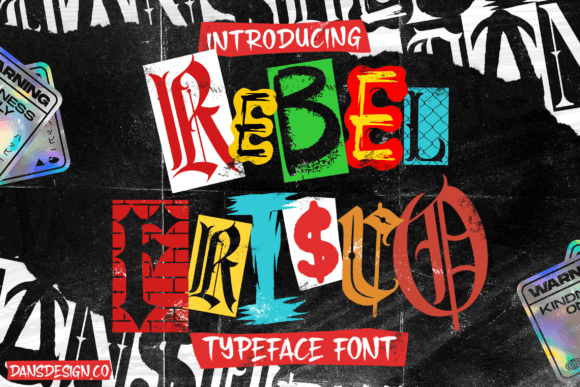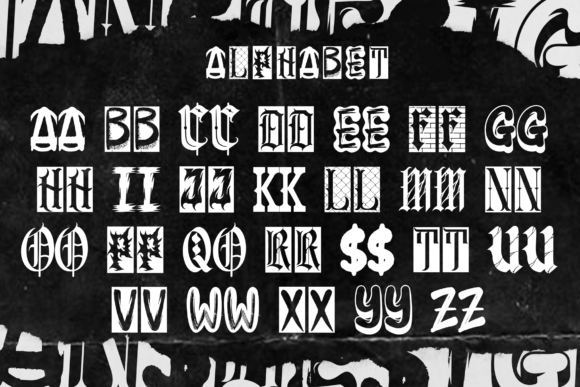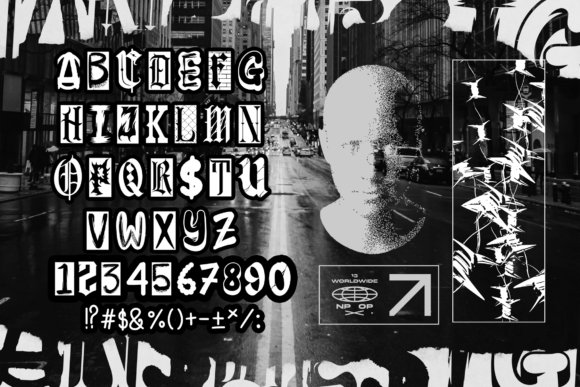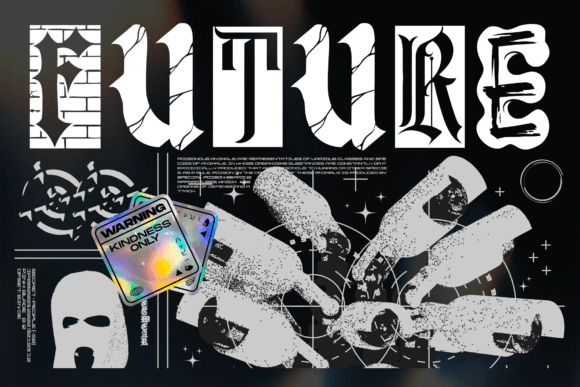
Rebel Frisco Graffiti Urban Y2k Font
About the Rebel Frisco Graffiti Urban Y2k Font
From logos to headlines, the Rebel Frisco Graffiti Urban Y2k Font is the perfect choice for making a lasting impression. REBEL FRISCO Graffiti Urban Y2k Font is a distinct and highly detailed typeface. GRAFFITI Urban Display Font. It would make a great choice for exquisite retro-urban designs, business branding, logos, Apparel designs, and more.
This font excels in headline applications, short impactful phrases, and logo design where its bold, rebellious character can make a statement. It’s ideal for projects with a strong urban, street-style aesthetic—think streetwear brands, music posters, or edgy graphic novels. Avoid using it for body text or extended reading; its highly detailed nature makes it less legible at smaller sizes.
Rebel Frisco’s raw energy pairs well with clean, geometric sans-serifs like Futura or Gill Sans for a balanced contrast. For a slightly softer feel, consider pairing it with a rounded sans-serif such as Open Sans or a more traditional serif like Garamond for a touch of unexpected elegance. Avoid pairing it with other highly stylized or decorative fonts, which would create visual overload.
Its core personality is undeniably bold and rebellious, conveying a sense of urban grit and youthful energy. This font is best suited for brands and projects that aim for a strong, memorable visual identity, reflecting a nonconformist and street-smart attitude.
Rebel Frisco Graffiti Urban Y2k Font Usage Examples
Rebel Frisco Graffiti Urban Y2k Font Example